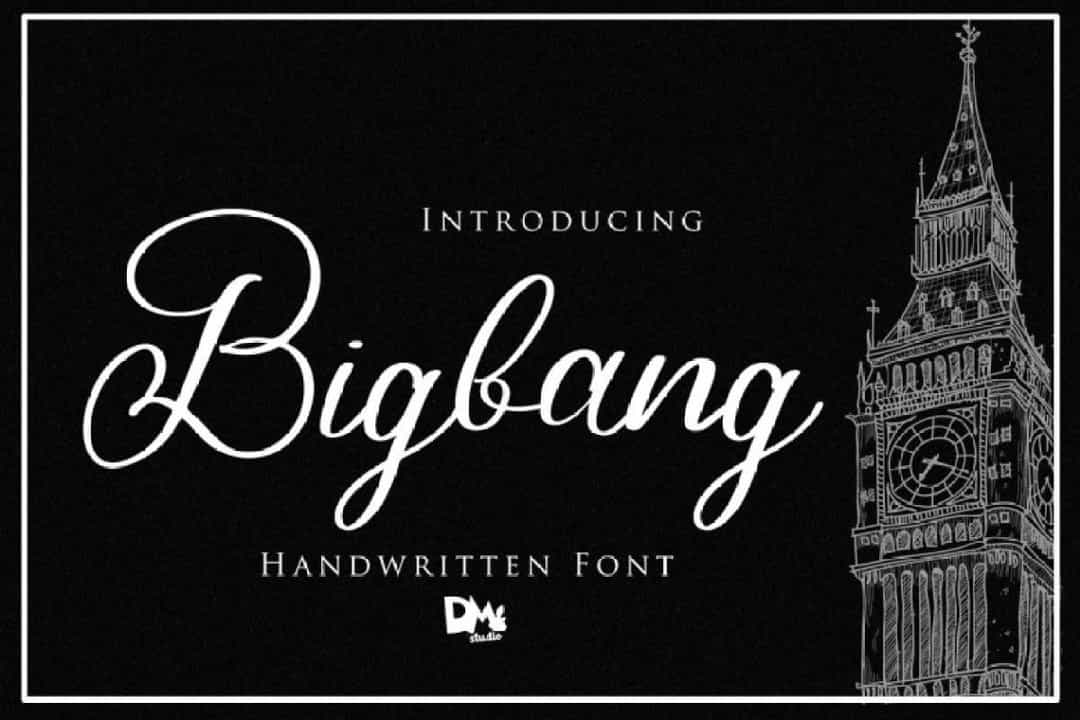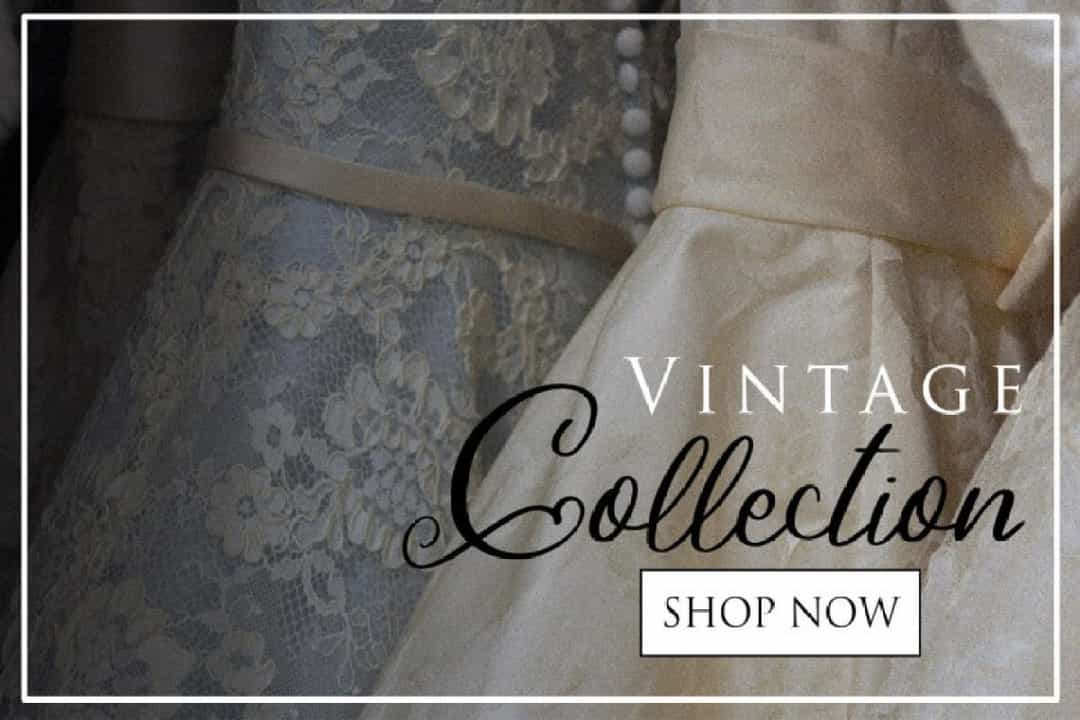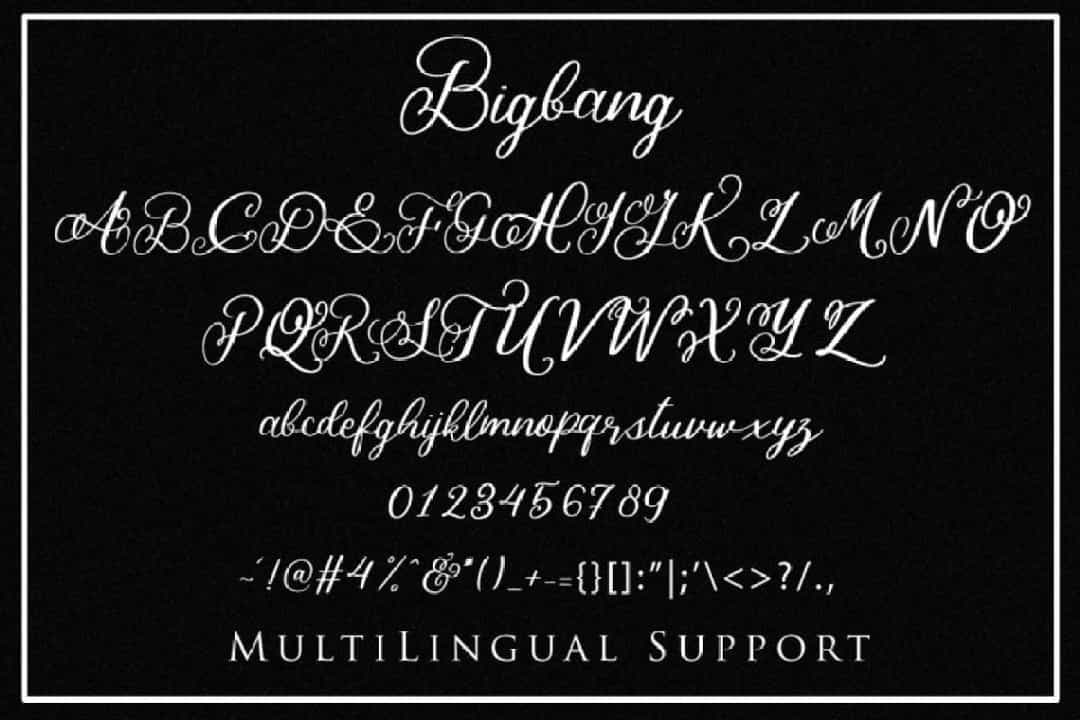
Bigbang is an authentic handwritten script font with a vintage aesthetic, perfect for adding vintage flair to any design! This font will look beautiful on designs for new Year designs, wedding invitations, quotes from blog articles or Business cards – making your designs truly iconic!